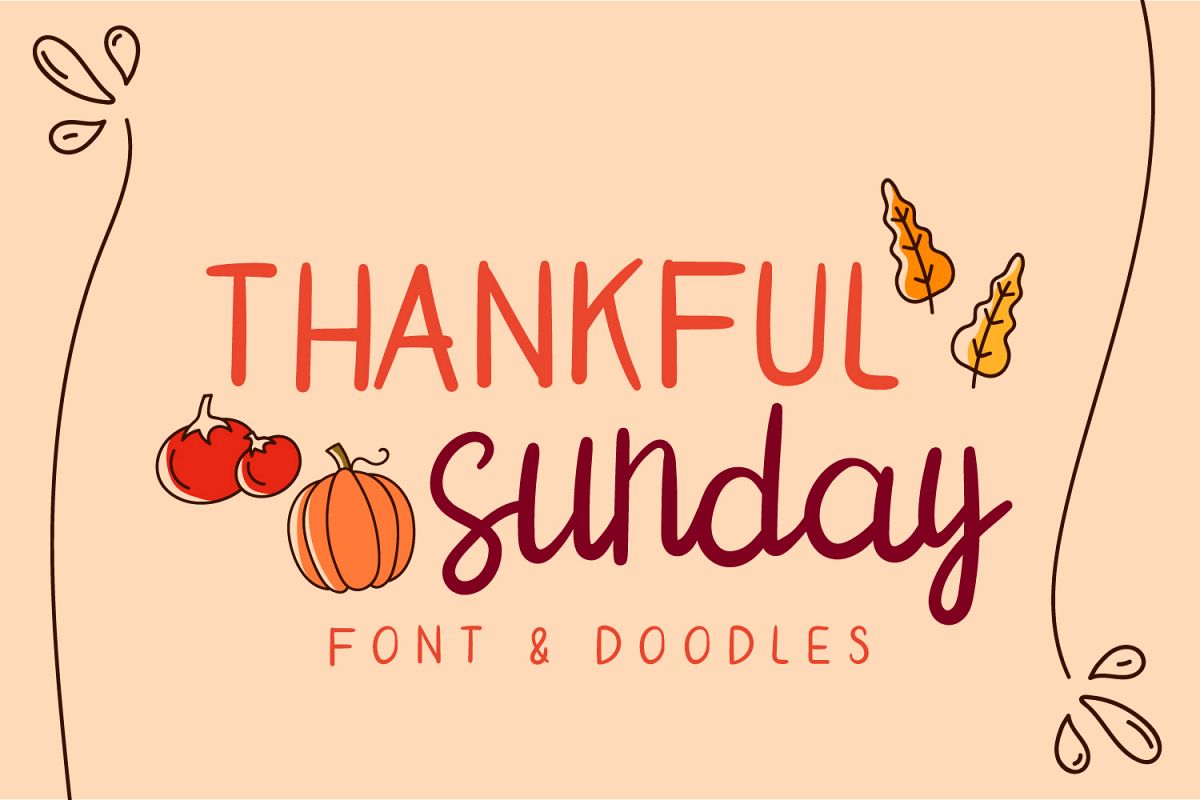
thankful sunday is a handwritten font duo with doodle fonts, its really greats for thanksgiving theme.
This font is perfect for your special moments. Also included are thanksgiving themed doodles to perfectly fit for your designs,
- Standard Characters, including UPPERCASE, lowercase, numerics and symbols.
- 26 Thanksgiving Doodles ( easily access by typing A-Z )